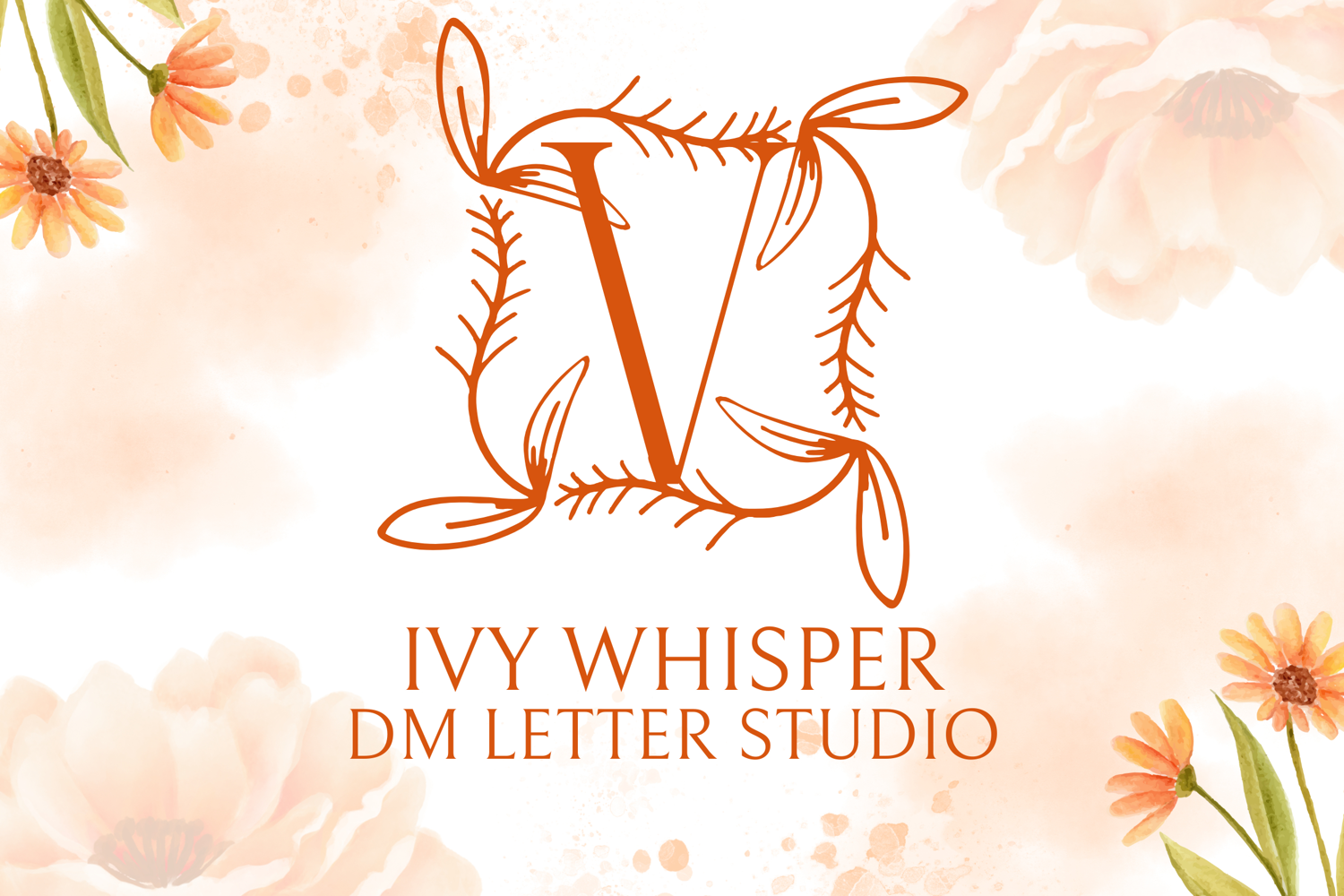
Ivy Whisper Monogram - Elegant Botanical Monogram Serif Font
Ivy Whisper Monogram
Ivy Whisper Monogram – Elegant Botanical Monogram Serif Font
Ivy Whisper Monogram is a refined serif monogram font inspired by the quiet beauty of trailing ivy and romantic garden aesthetics. Each uppercase letter features graceful curves and leafy embellishments, making it ideal for elegant branding, wedding stationery, and customized gifts. Delicate yet structured, this font whispers timeless sophistication into every monogram design.
• Nature-Inspired Details: Subtle ivy vines and leaf motifs enhance each capital letter with organic elegance.
• Classic Serif Base: A refined serif structure provides balance and timeless appeal.
• Ideal for Customization: Perfect for initials, logos, signage, and monogram-focused designs.
• Ideal For: Wedding invitations, elegant branding, Cricut crafts, floral-themed decor, gift packaging, and premium stationery.